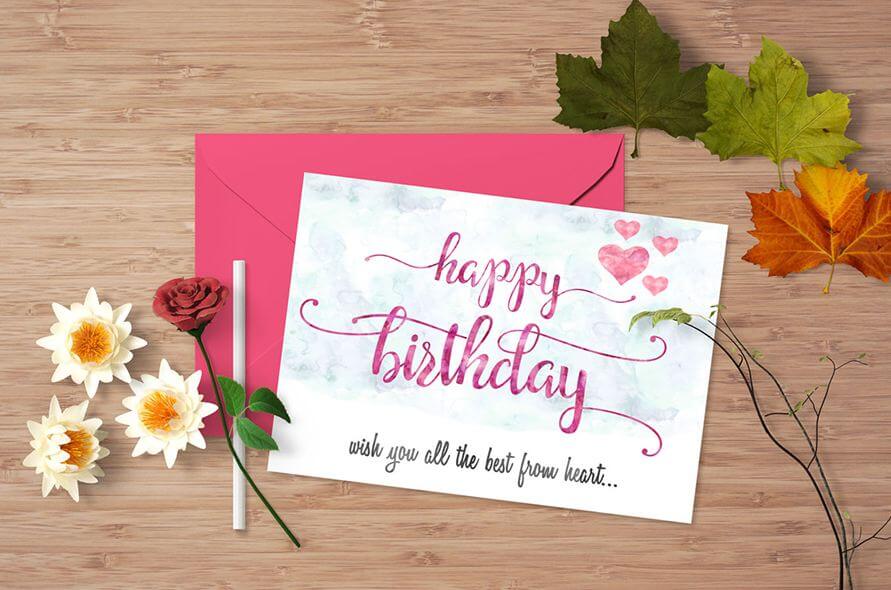
Saldina Font
Saldina Font is a free typeface that merges brush lettering with a pronounced uppercase stroke. It bears a resemblance to the apercu font when viewed in a font preview. To see more examples, simply scroll down.
This typeface is similar to playlist script has got to have its title in the major ranks.Having keen attributes, enormous language help, and a satisfactory seem, it earned an exotic presence within the font industries.
Style Of Saldina Font